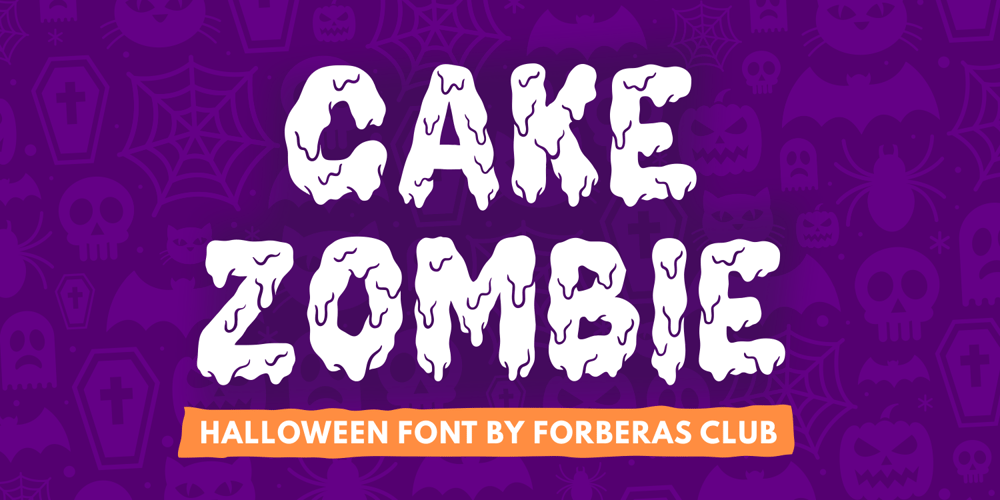
Cake Zombie Font Family was designed by ANGGI HERMAWAN and published by Forberas Club. Cake Zombie contains 1 styles and family package options. Introducing Cake Zombie by forberas, This font born to be a Halloween Project. But still can be made as a display font, and still suit your other fun project. Your review and response are most welcome.